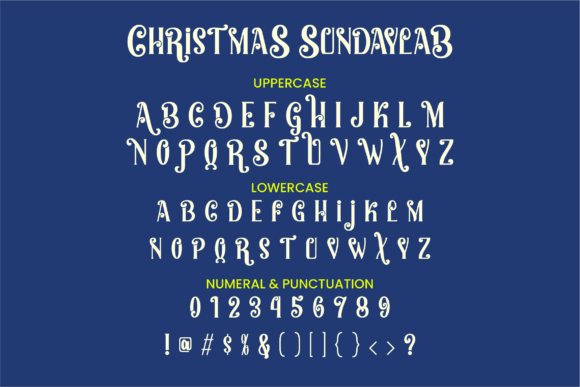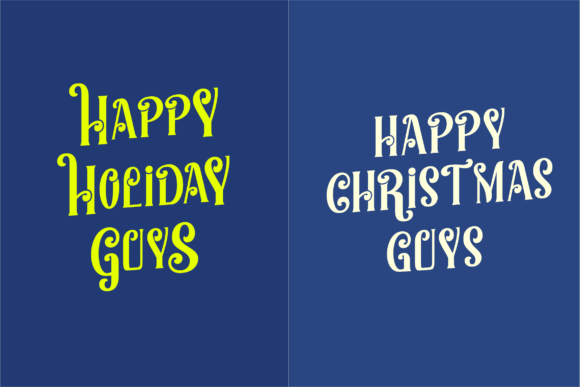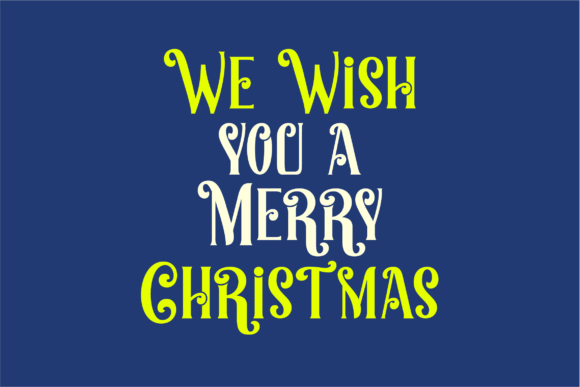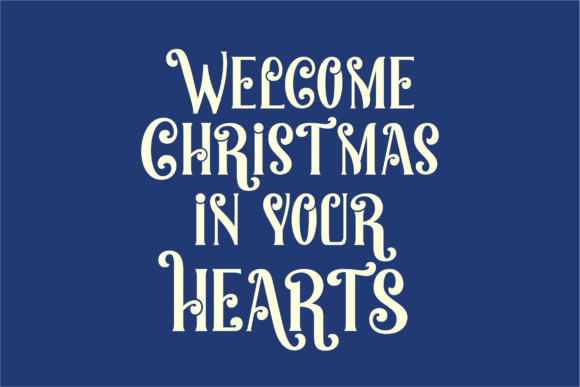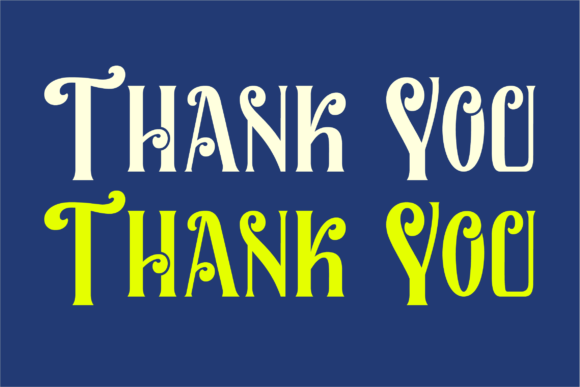
Introducing Christmas Sundaylab: The Ultimate Festive Display Font
Are you looking for a font that captures the essence of the winter season? Do you want to add a touch of elegance and festivity to your designs? Look no further than Christmas Sundaylab, a stunning display font that’s perfect for any winter vacation creation. In this article, we’ll dive into the features and benefits of Christmas Sundaylab, and explore how you can use it to bring your designs to life.
What is Christmas Sundaylab?
Christmas Sundaylab is a festive and classy display font that’s specifically designed to evoke the magic of the winter season. With its elegant and sophisticated lettering, this font is ideal for creating eye-catching designs that scream holiday cheer. Whether you’re working on a Christmas card, a winter-themed poster, or a festive social media graphic, Christmas Sundaylab is the perfect choice.
Key Features of Christmas Sundaylab
• Festive and elegant design: Christmas Sundaylab boasts a unique and stylish design that’s perfect for the winter season. Its elegant lettering and sophisticated curves make it ideal for creating high-end designs.
• Display font: As a display font, Christmas Sundaylab is specifically designed to make a statement. Its bold and eye-catching lettering is perfect for headlines, titles, and other prominent design elements.
• Winter vacation theme: Christmas Sundaylab is perfectly suited for any winter-themed design project. Whether you’re creating a Christmas card, a New Year’s Eve invitation, or a winter sports poster, this font has got you covered.
Benefits of Using Christmas Sundaylab
So why choose Christmas Sundaylab for your winter-themed design projects? Here are just a few benefits of using this amazing font:
• Adds a touch of elegance: Christmas Sundaylab brings a level of sophistication and elegance to your designs that’s hard to achieve with other fonts.
• Instantly recognizable: The unique design of Christmas Sundaylab makes it instantly recognizable as a winter-themed font. This can help to create a cohesive and festive look in your designs.
• Versatile: While Christmas Sundaylab is specifically designed for winter-themed projects, it’s also versatile enough to be used in a range of other design contexts.
• Time-saving: With Christmas Sundaylab, you can create stunning winter-themed designs in a fraction of the time it would take with other fonts.
How to Use Christmas Sundaylab in Your Designs
Using Christmas Sundaylab in your designs is easy. Here are a few tips to get you started:
• Pair it with a simple font: For maximum impact, pair Christmas Sundaylab with a simple font like Arial or Helvetica. This will help to create a clear visual hierarchy in your design.
• Experiment with colors: Christmas Sundaylab looks amazing in a range of festive colors, from bright reds and greens to icy blues and silvers.
• Use it for headlines: Christmas Sundaylab is perfect for headlines and titles. Use it to create eye-catching design elements that draw the viewer in.
• Add some winter-themed graphics: To really make your design pop, consider adding some winter-themed graphics like snowflakes, holly, or Christmas trees.
Christmas Sundaylab is a truly exceptional display font that’s perfect for any winter-themed design project. With its elegant and sophisticated lettering, this font is sure to add a touch of festivity and class to your designs. Whether you’re a professional designer or a crafter, Christmas Sundaylab is a must-have font for the winter season. So why wait? Download Christmas Sundaylab today and start creating stunning winter-themed designs that will leave a lasting impression.